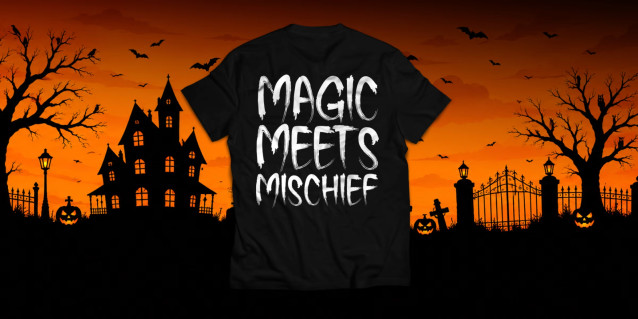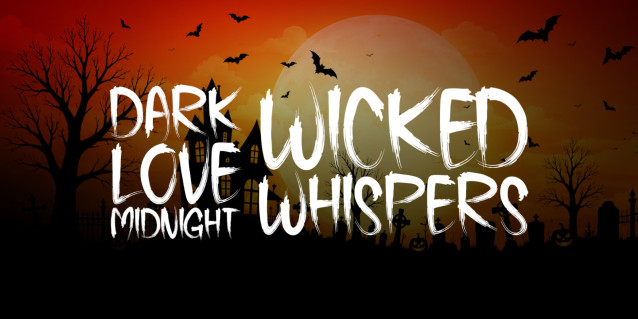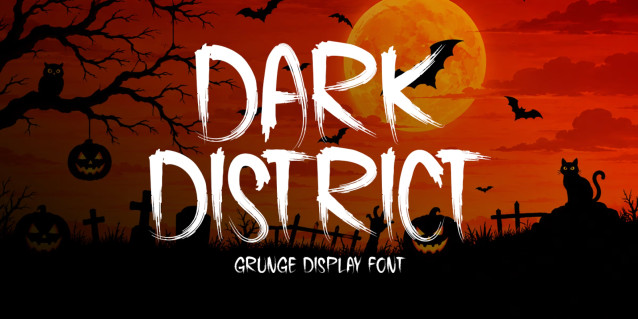
Dark District Font
Dark District is a grunge display font inspired by gritty textures, urban chaos, and raw underground aesthetics. Its distressed letterforms bring a rugged, rebellious character to every design. Perfect for posters, album artwork, apparel graphics, branding, headlines, stickers, horror themes, and other creative projects that demand a strong visual impact.
Dark District adds an authentic worn-out feel while maintaining clear readability, making it a versatile choice for both dark and edgy designs.